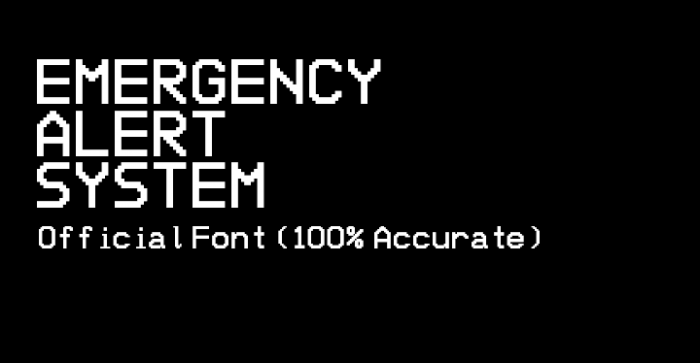
I updated the "4" just in case you didn't notice
@reynaa0919 - I also love EASyPlus, and I have put some effort into this masterpiece!
Nice! It looks like the actual thing. Good work!
@Can'tfind1usernamecanI? the font used changes width, probably to adapt to different screen ratios (such as 16:9 to 3:4 to 5:4 etc) i guess